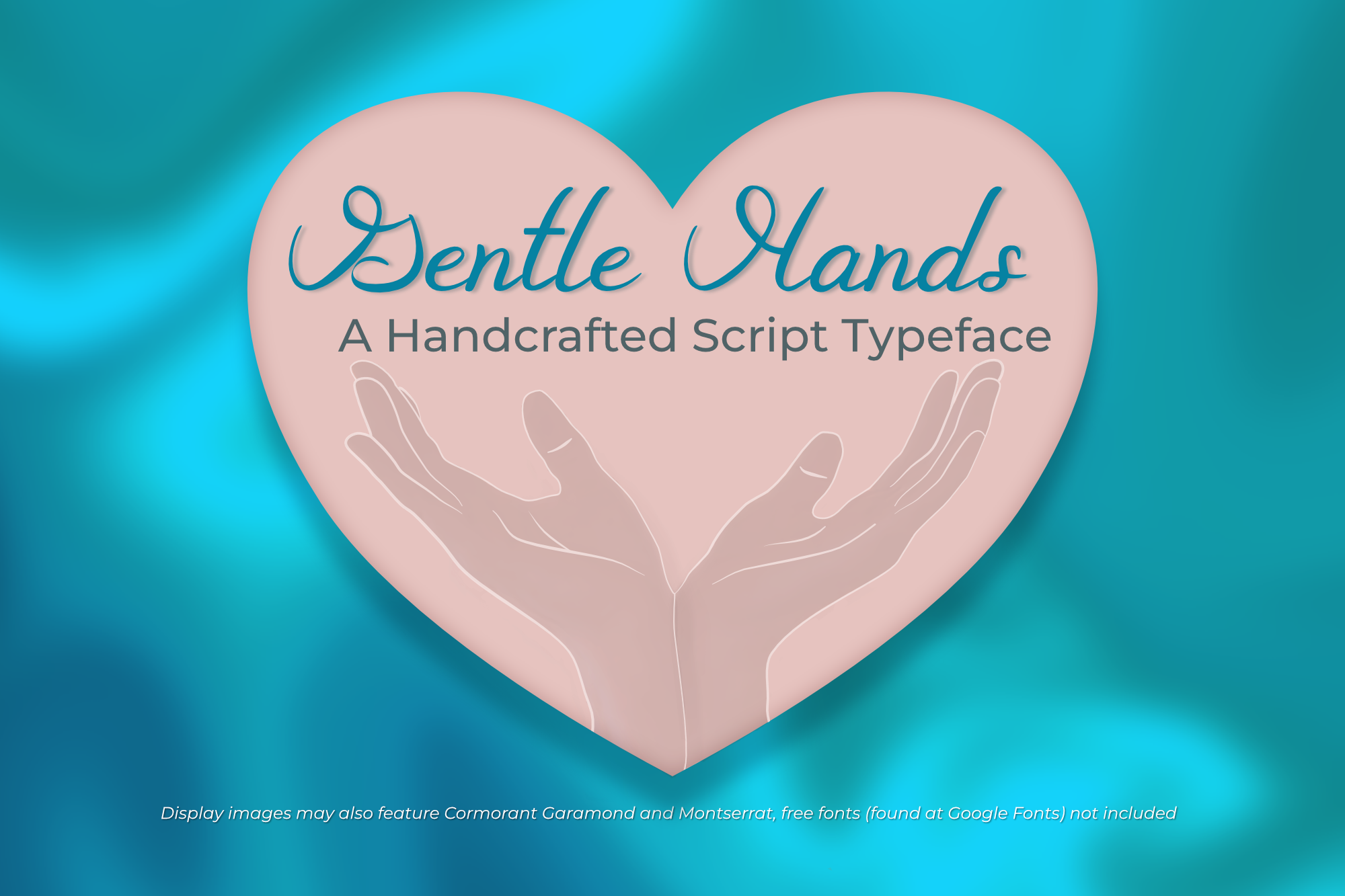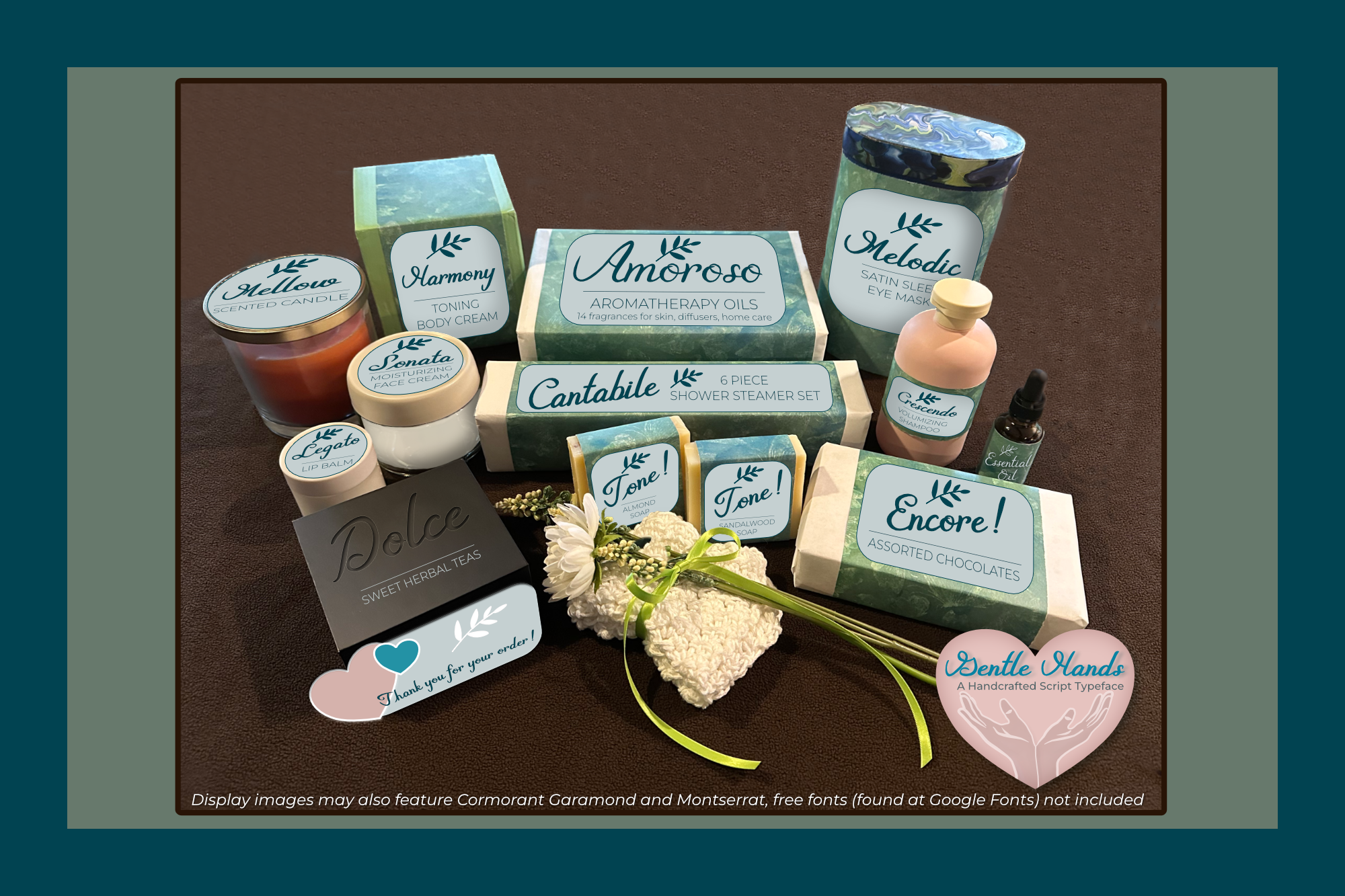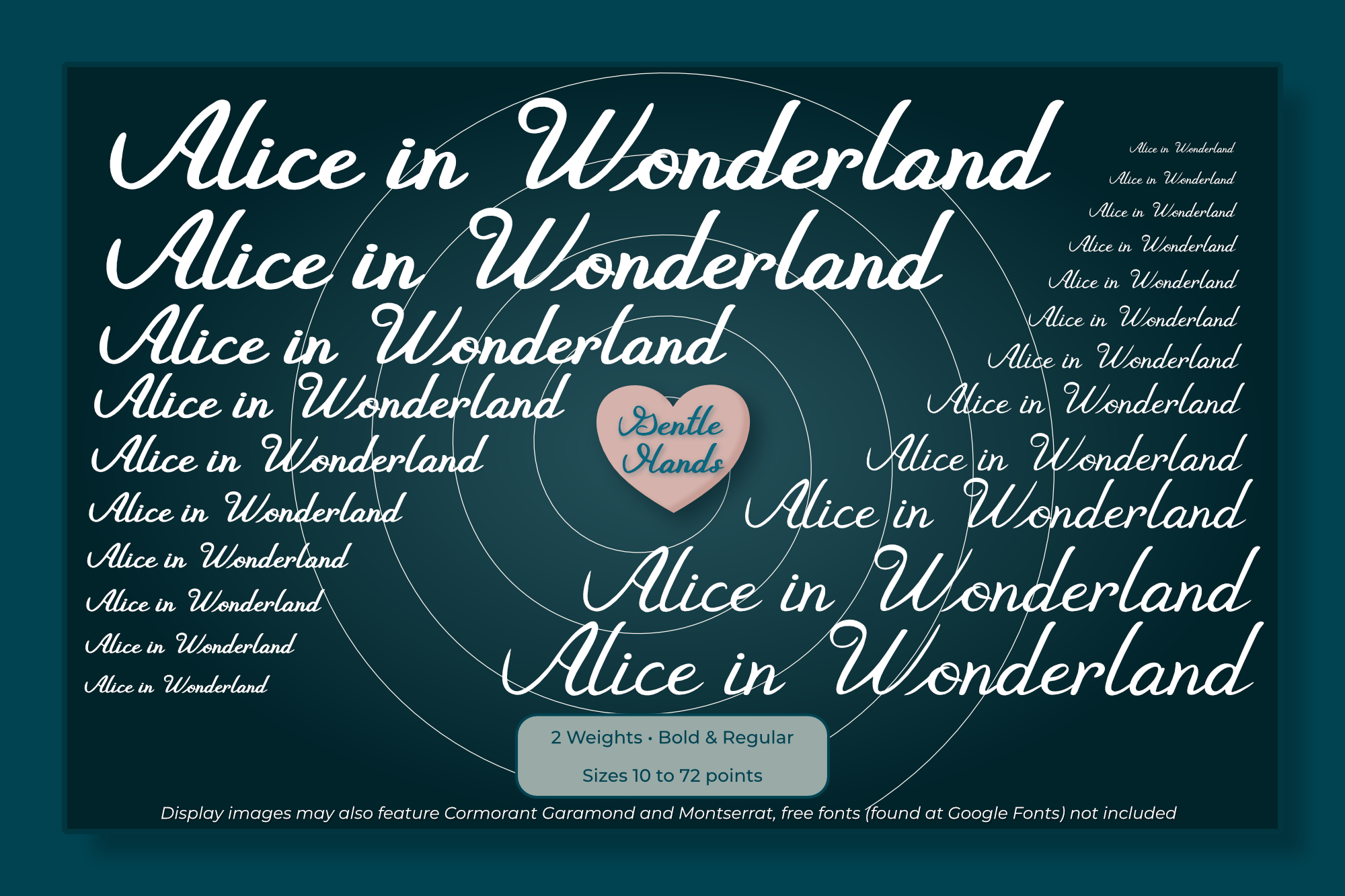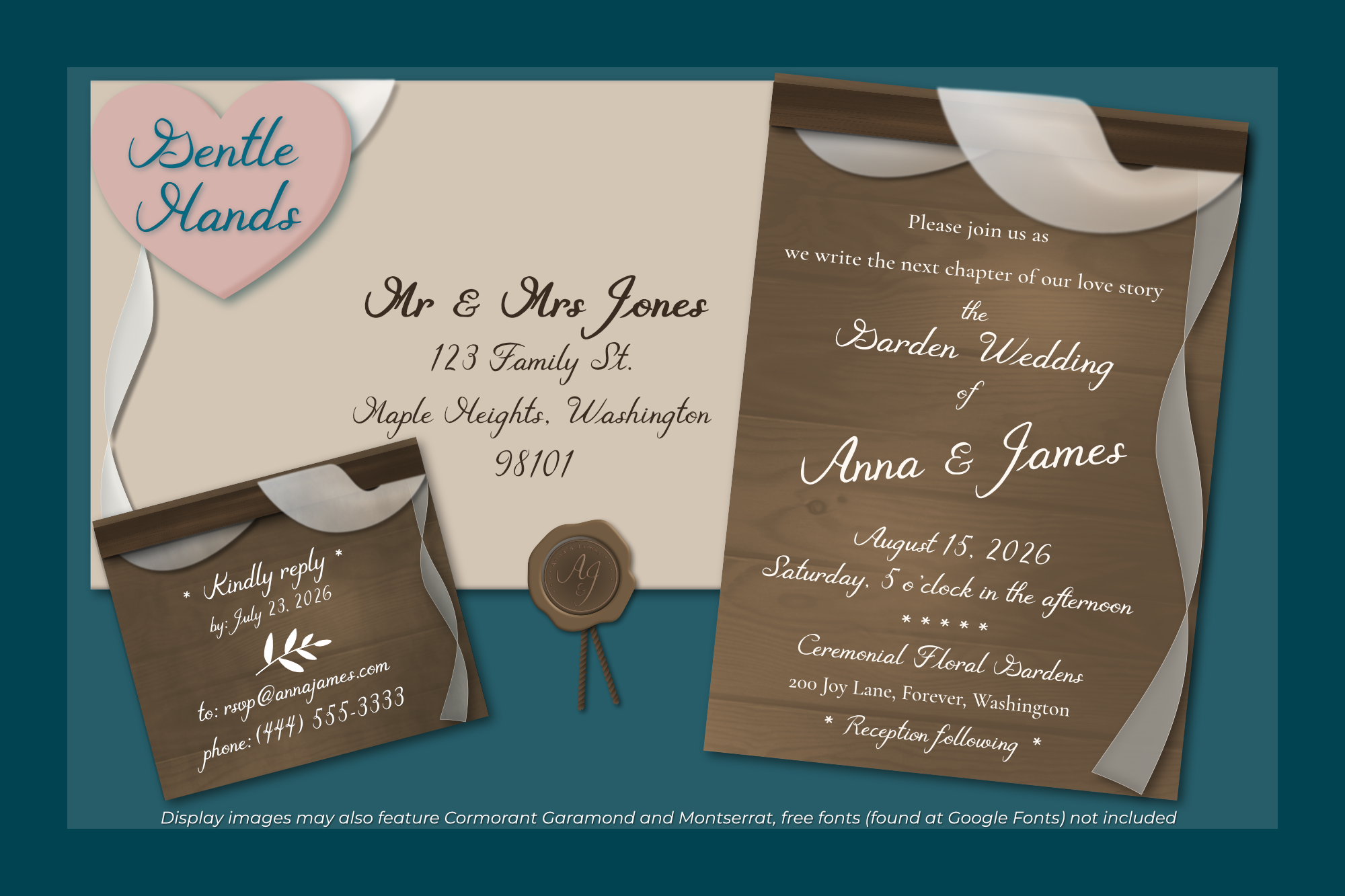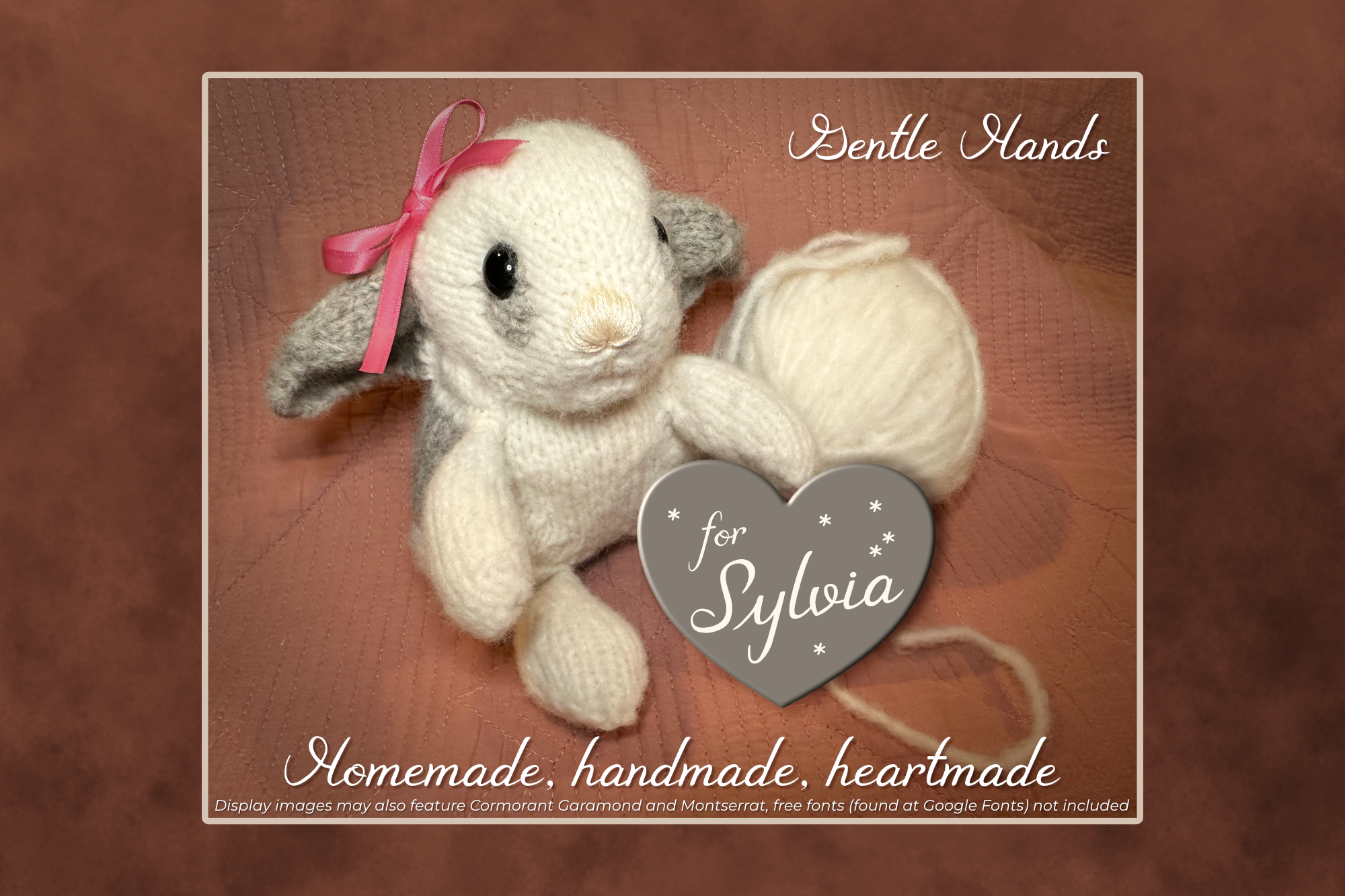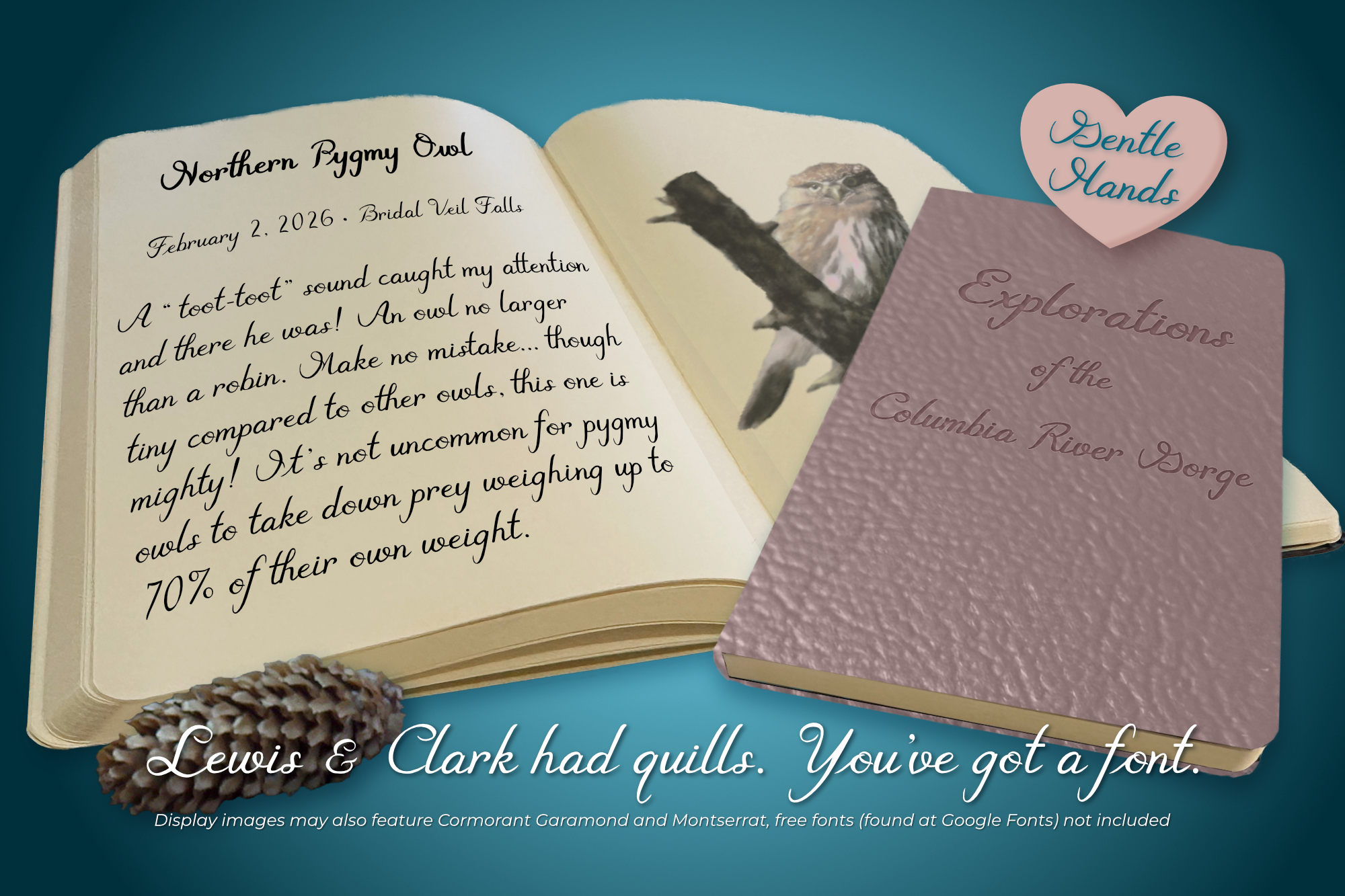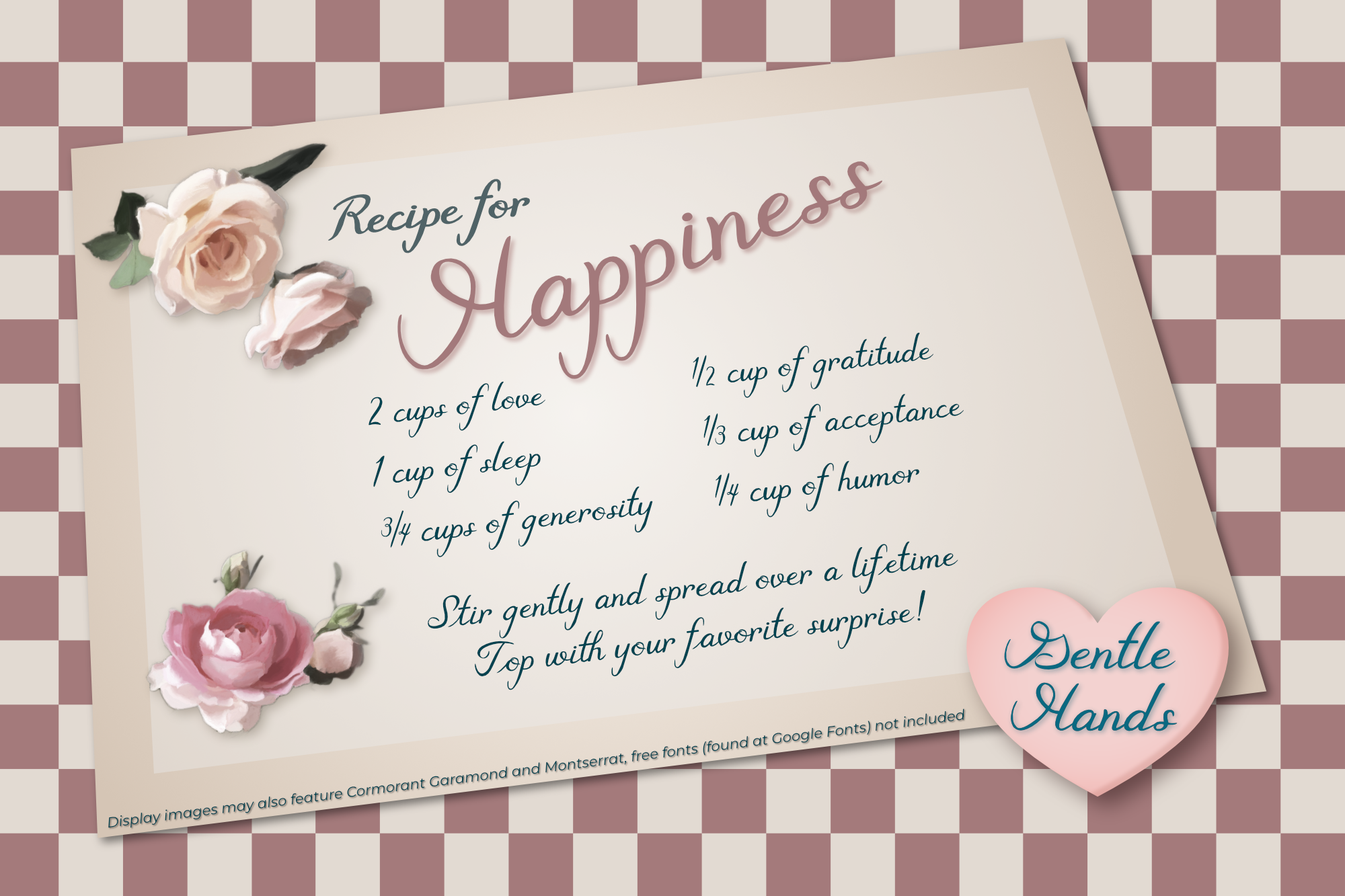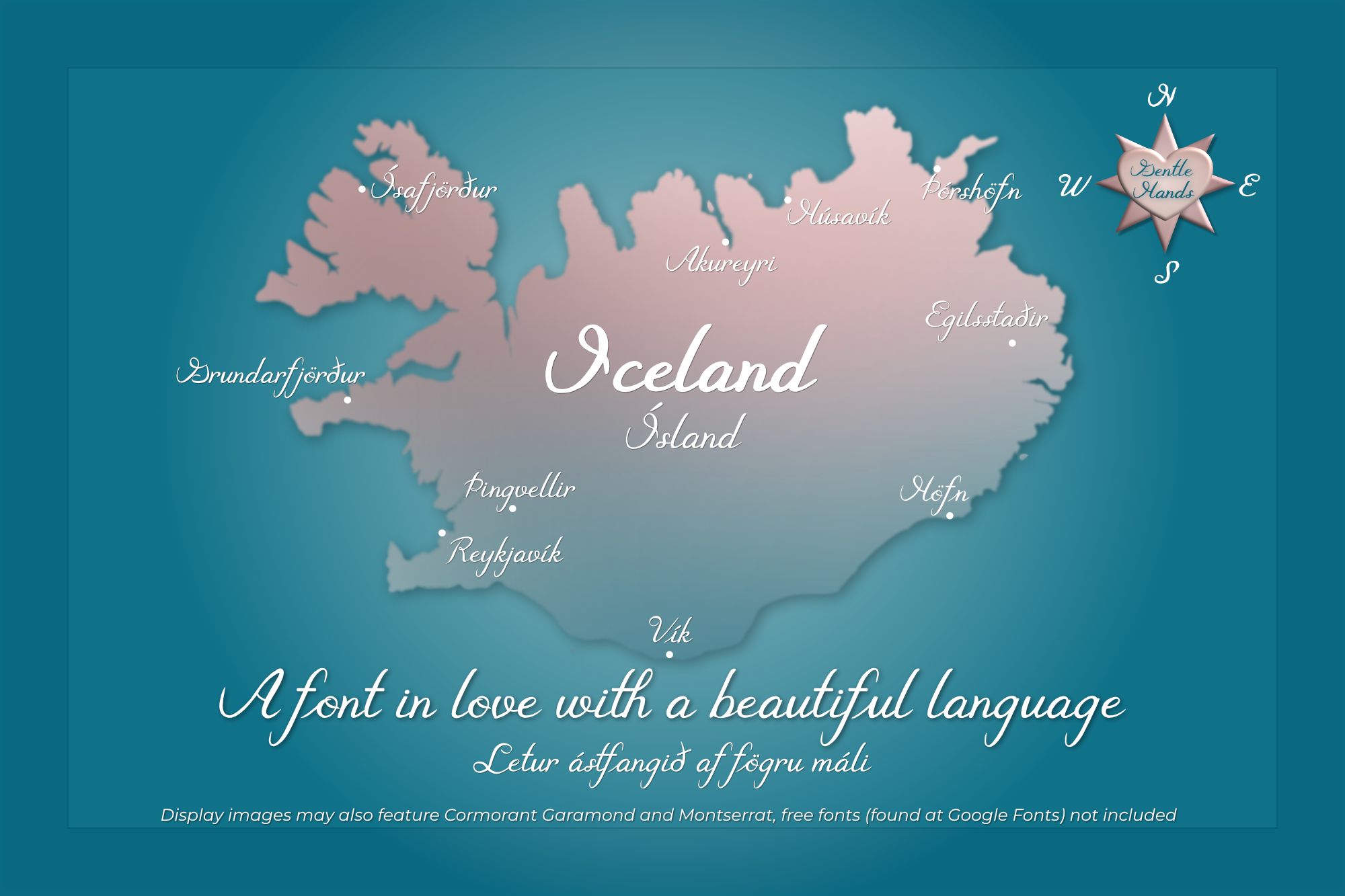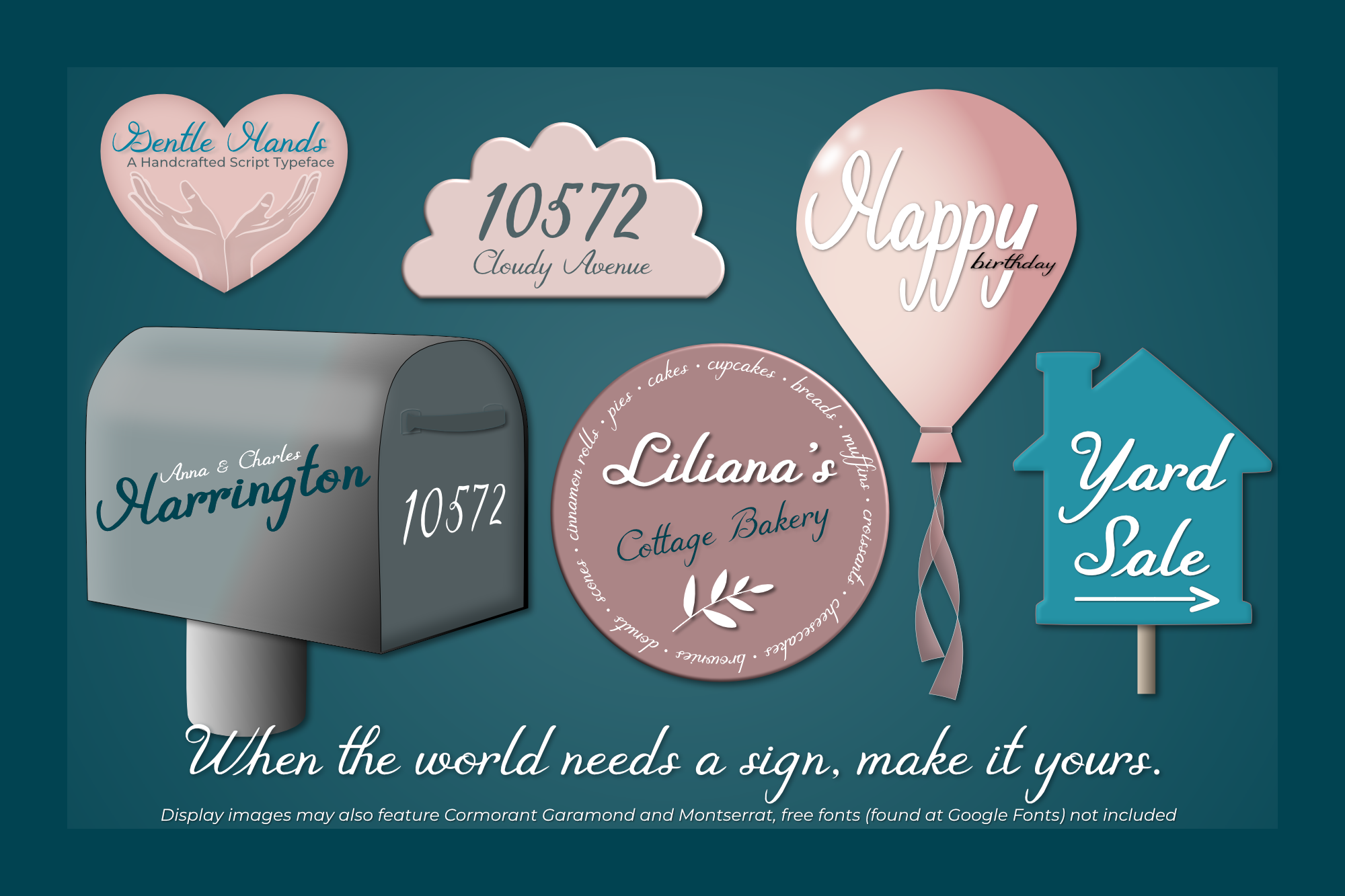
Gentle Hands - A Handcrafted Script Font
I've created a handwritten script style font called Gentle Hands. I named it this because I have so many fond memories of people's hands: mom's cool hands on my feverish forehead, my piano teacher's graceful hands, holding hands with my first love. These are the feelings Gentle Hands font was meant to carry.
Creating the Gentle Hands font began as a personal solution when my own hands grew too unsteady for the handwritten warmth I wanted in my own digital journal and planner. Click this link to read more about My Font Learning Journey.
If you are looking for a unique and personable font style to use on invitations, concert programs, handwritten style notes, certificates, journals, recipes, product labeling, fantasy maps and so much more, Gentle Hands will bring a warm and inviting meaning to your words.